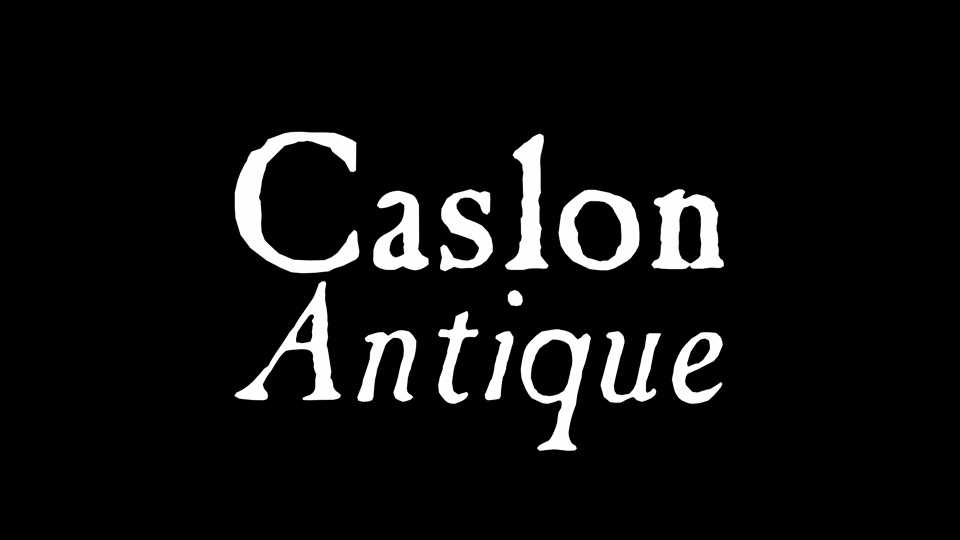
Download Caslon Antique font, a serif typeface based on the popular and timeless Caslon design by William Caslon in the mid-18th century. Use Caslon Antique for that “old-timey” effect in graphic designs.
Designer: Phillip Wildhirt